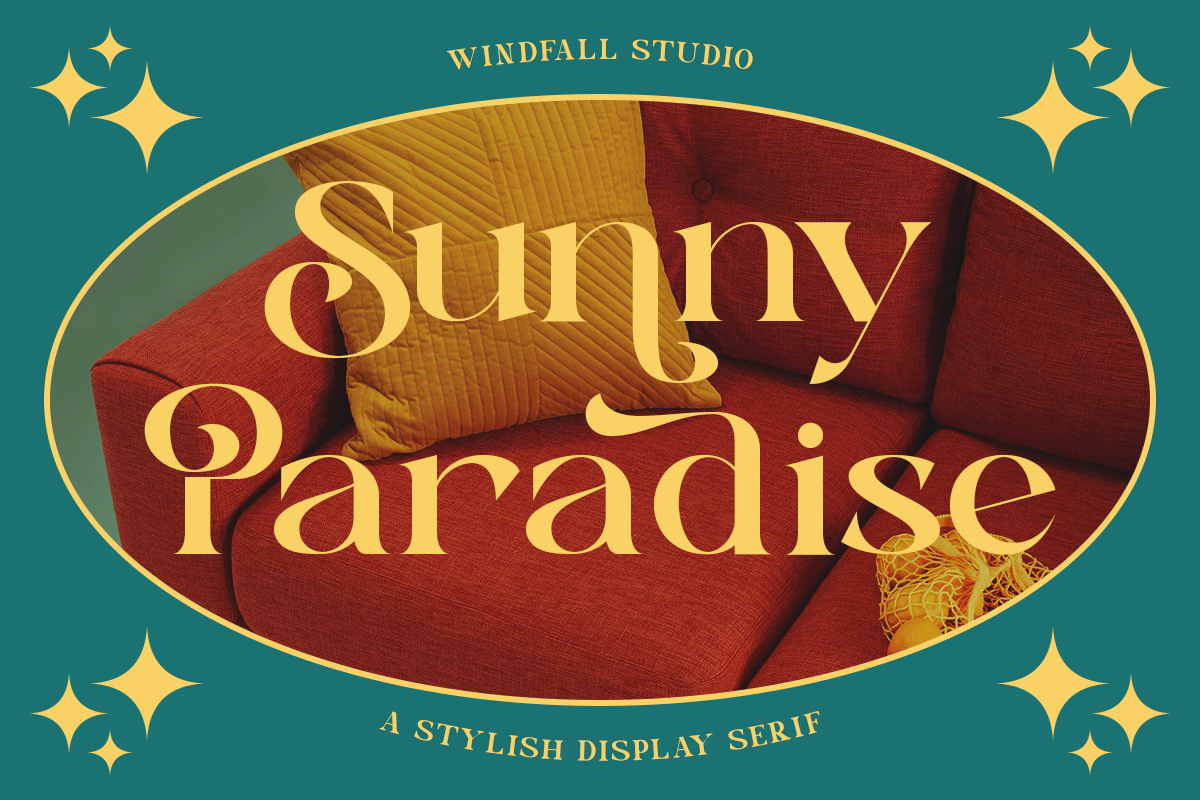
Sunny Paradise - Decorative Typeface
Sunny Paradise is unique Font as it can be used for a variety of design styles. It fits in wonderfully for free-spirited, boho designs and also for more classy editorial looks!
There are a lot of fun stylistic alternates available to use with this font. These letters are embedded into the font file and easily accessible in programs such as photoshop and illustrator.